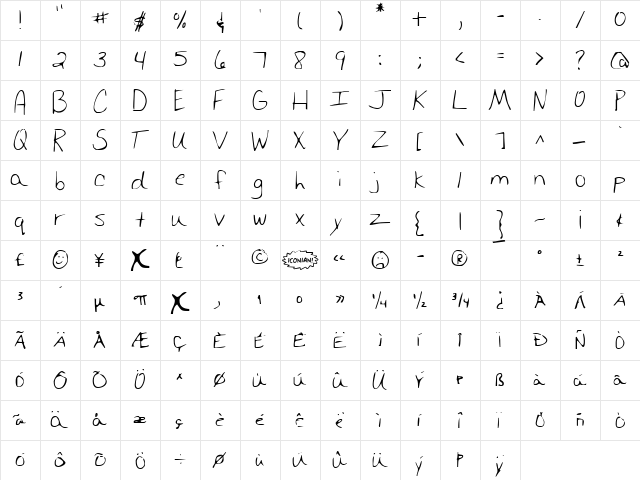
Merri Christina Regular
| Designer | Dan Zadorozny |
Design Context for Merri Christina Typeface
Merri Christina is a composed and adaptable typeface that performs quietly and consistently across a wide range of design contexts.